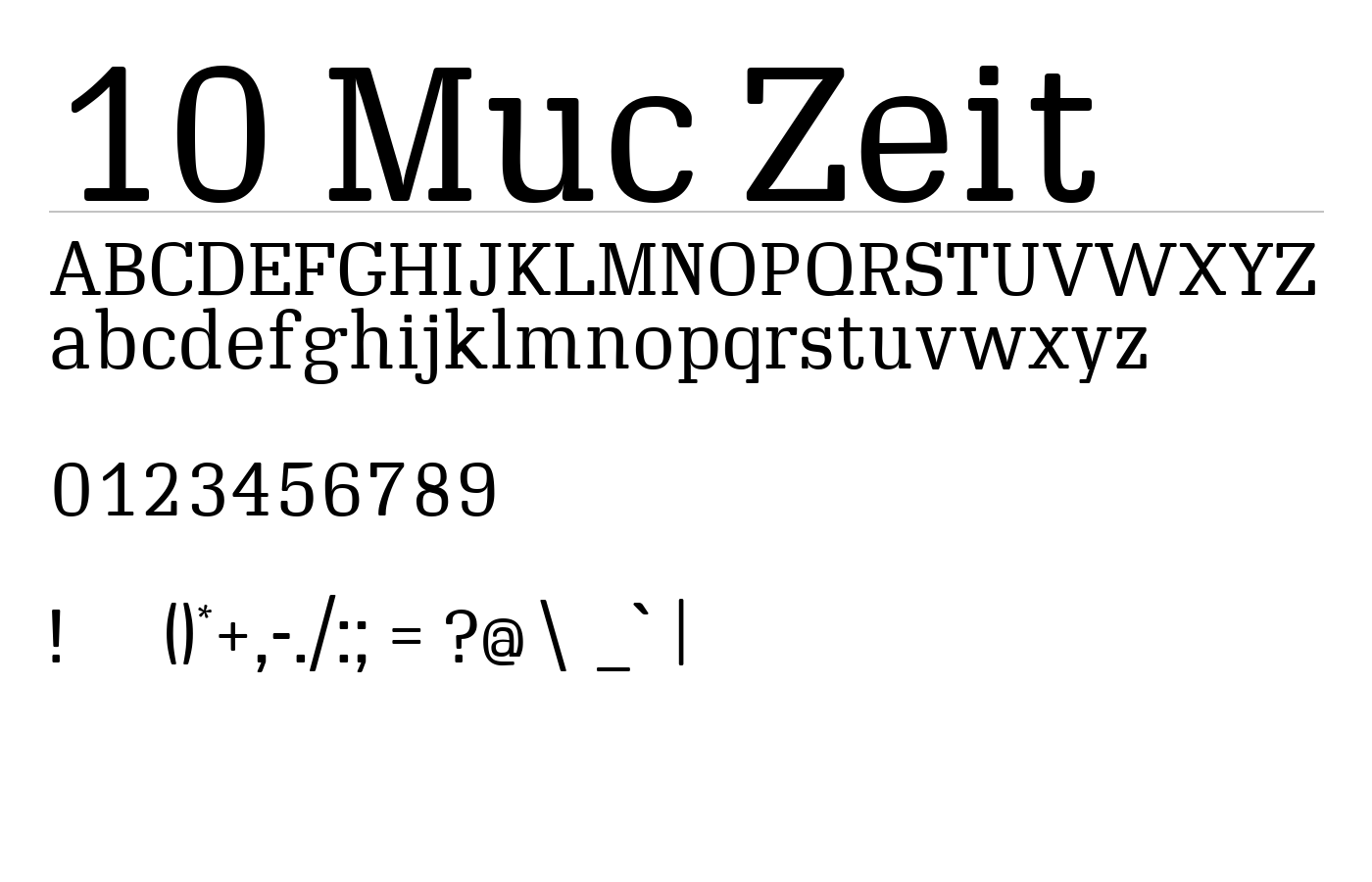
10 Muc Zeit is a slab serif font featuring a clean, structured design with medium weight and normal width, emphasizing readability and clarity. Its monospaced-like uniformity, bracketed serifs, and balanced contrast give it a slightly vintage yet modern industrial feel, making it ideal for editorial use, coding environments, or branding that seeks a sturdy and professional tone. The font’s straightforward letterforms and consistent spacing ensure excellent legibility in both text and headlines.
10 Muc Zeit Font
About 10 Muc Zeit Font
| Designer | Filip Zajac |